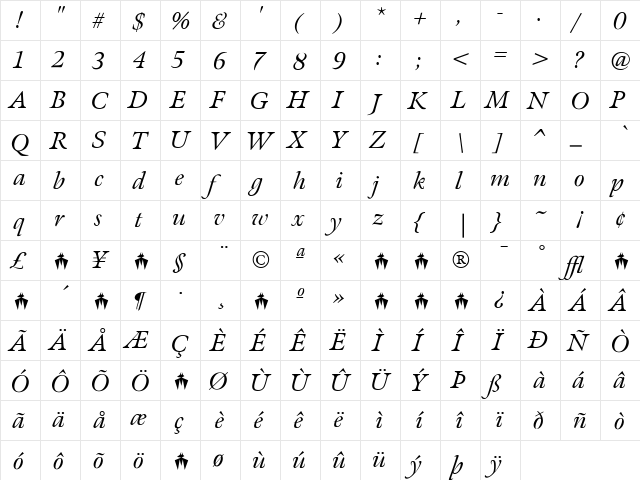
Meno Italic Font Preview
Meno Italic
Design Context for Meno Typeface
Meno offers clean, dependable letterforms without strong stylistic allegiance, making it a practical choice for designers who need flexibility. The dynamic lean of this cut emphasises speed and emphasis in any layout.